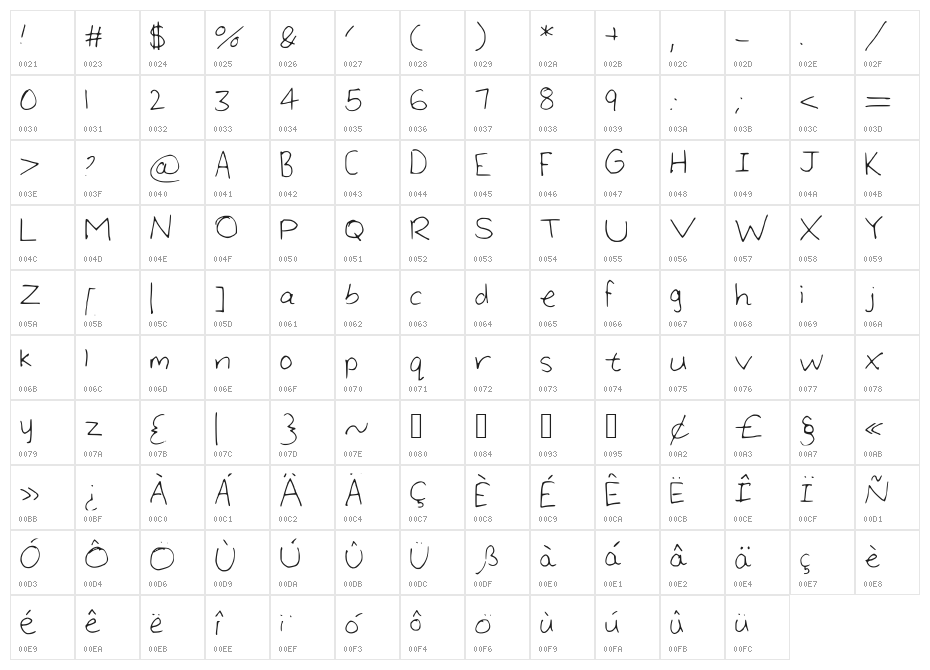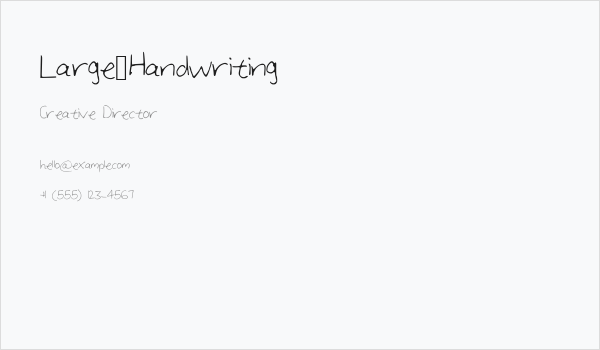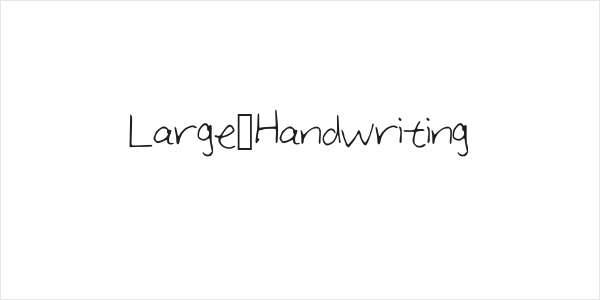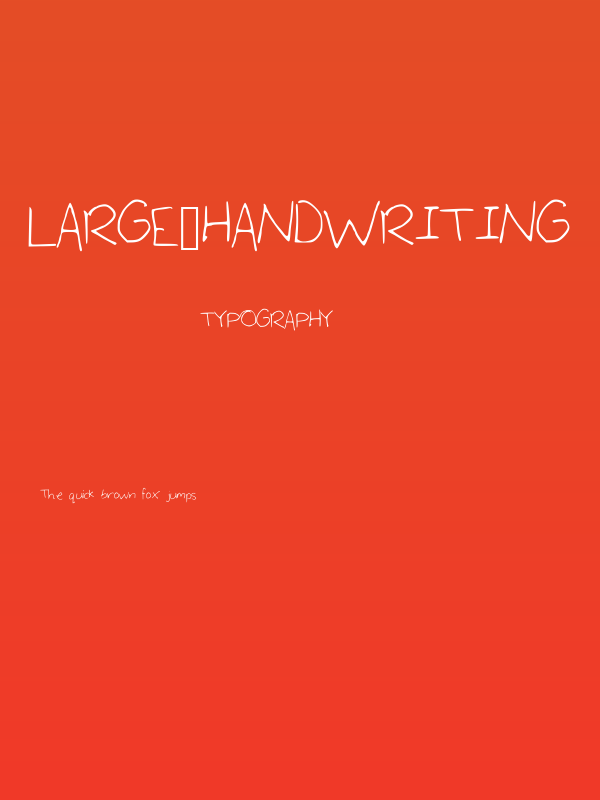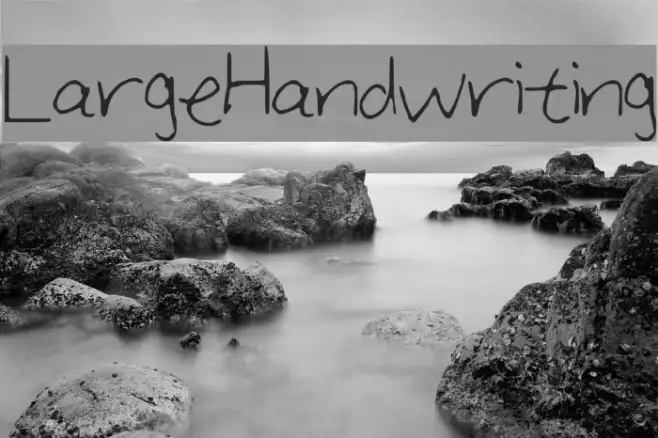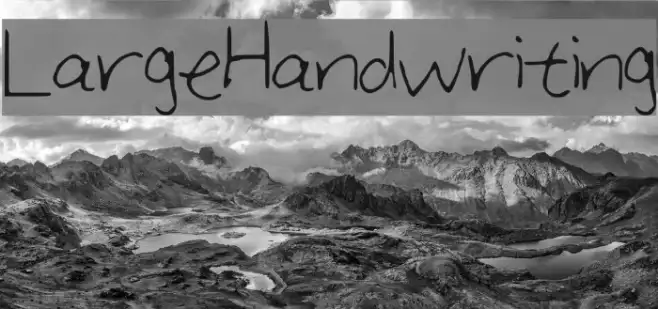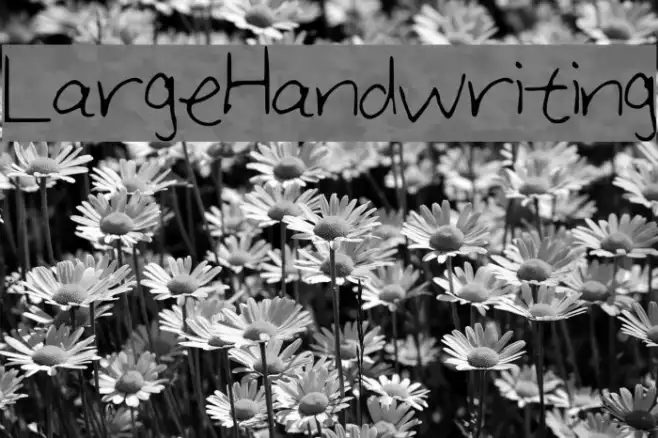
Large_Handwriting Font
Large_Handwriting Description
This font exhibits a casual, handwritten style with a playful and informal appearance. The characters are unevenly sized and spaced, mimicking the natural flow of handwriting. The strokes are smooth and slightly irregular, adding to the authenticity of a handwritten look. The uppercase letters are bold and prominent, while the lowercase letters maintain a consistent flow. Numbers and special characters follow the same handwritten aesthetic, making the font versatile for various creative projects. The overall impression is friendly and approachable, suitable for designs that require a personal touch.
| Proposed Projects | Ideal for greeting cards, personal notes, invitations, and creative projects that require a personal touch. |